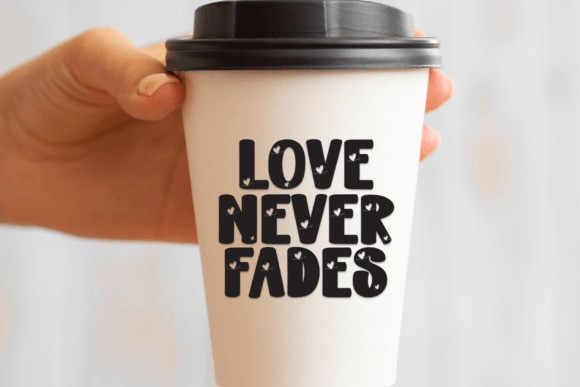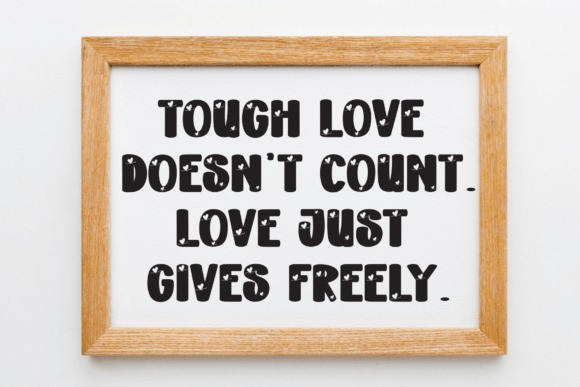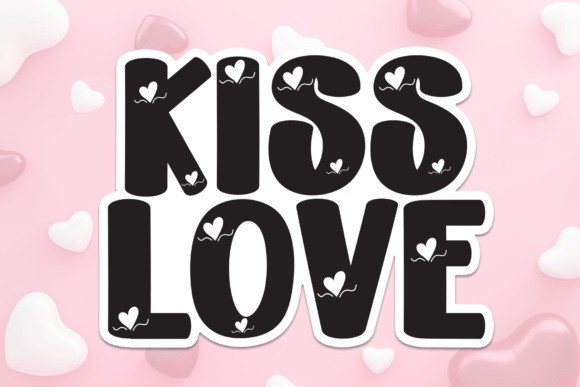
Kiss Love Font
Kiss Love Font is a sweet and friendly handwritten font. Its natural and unique style makes it incredibly fitting to a large pool of designs. The only limit is your imagination!